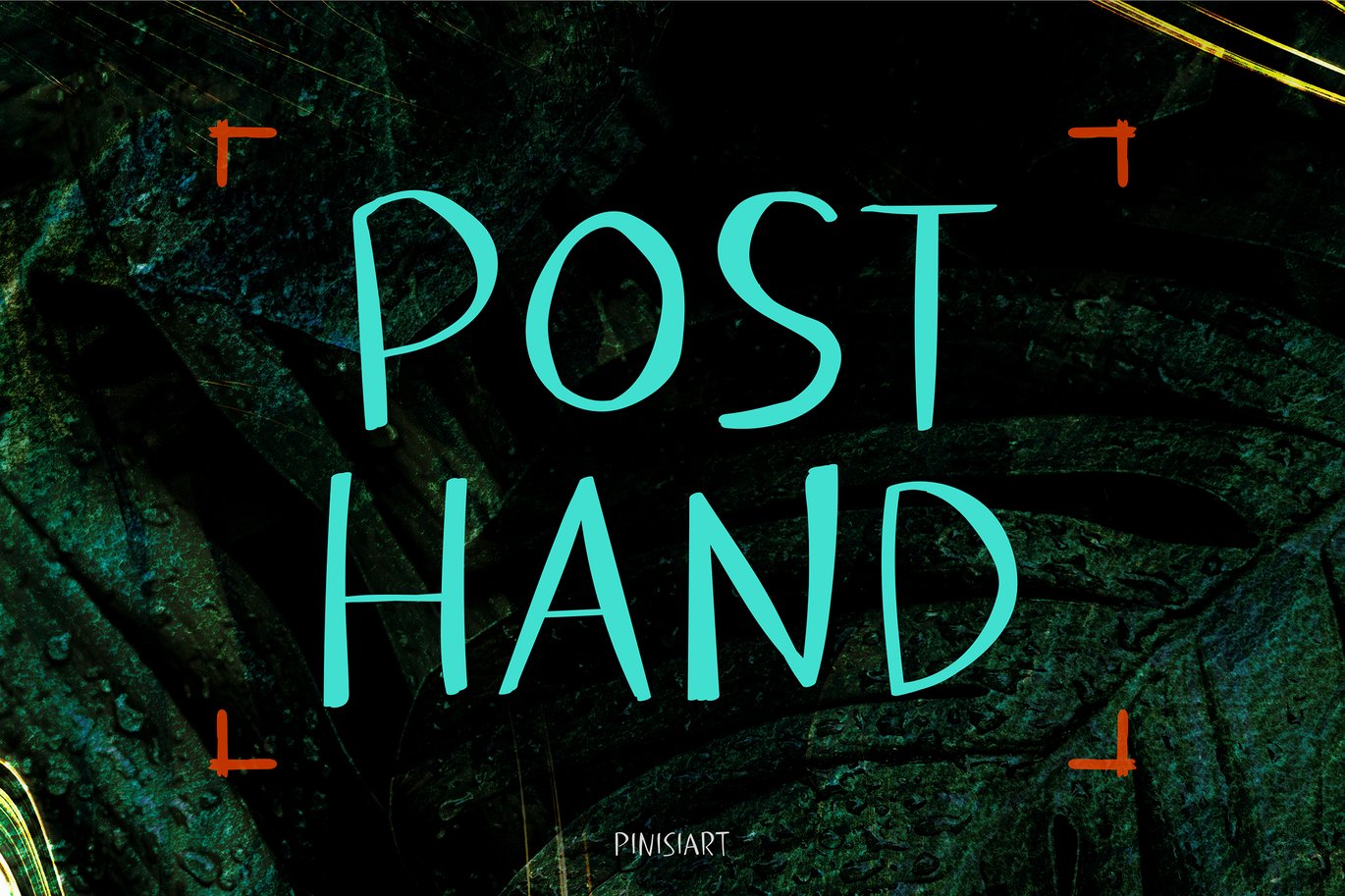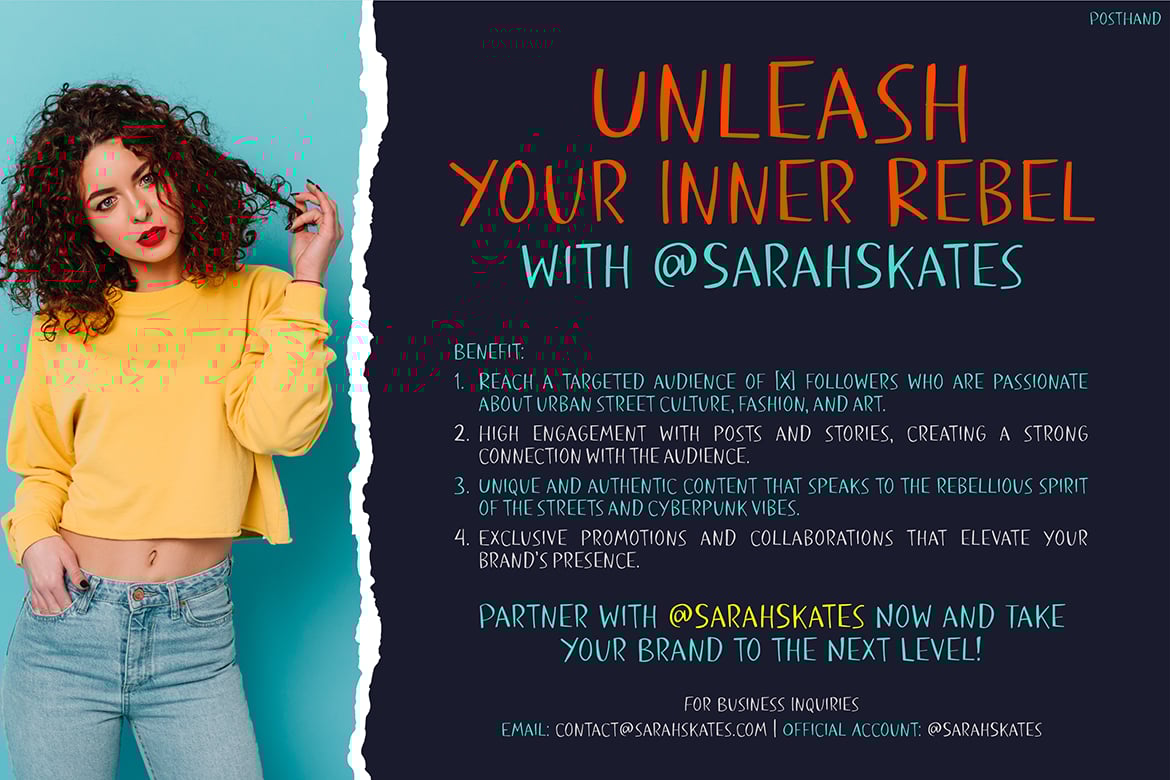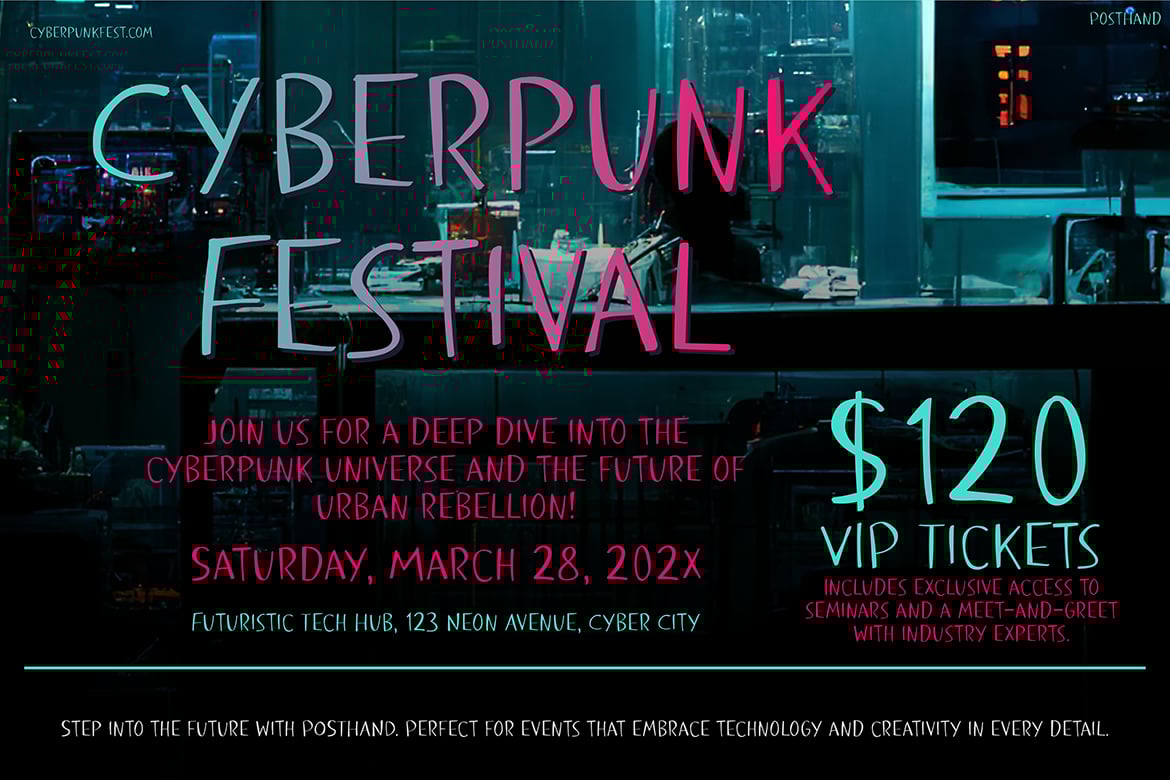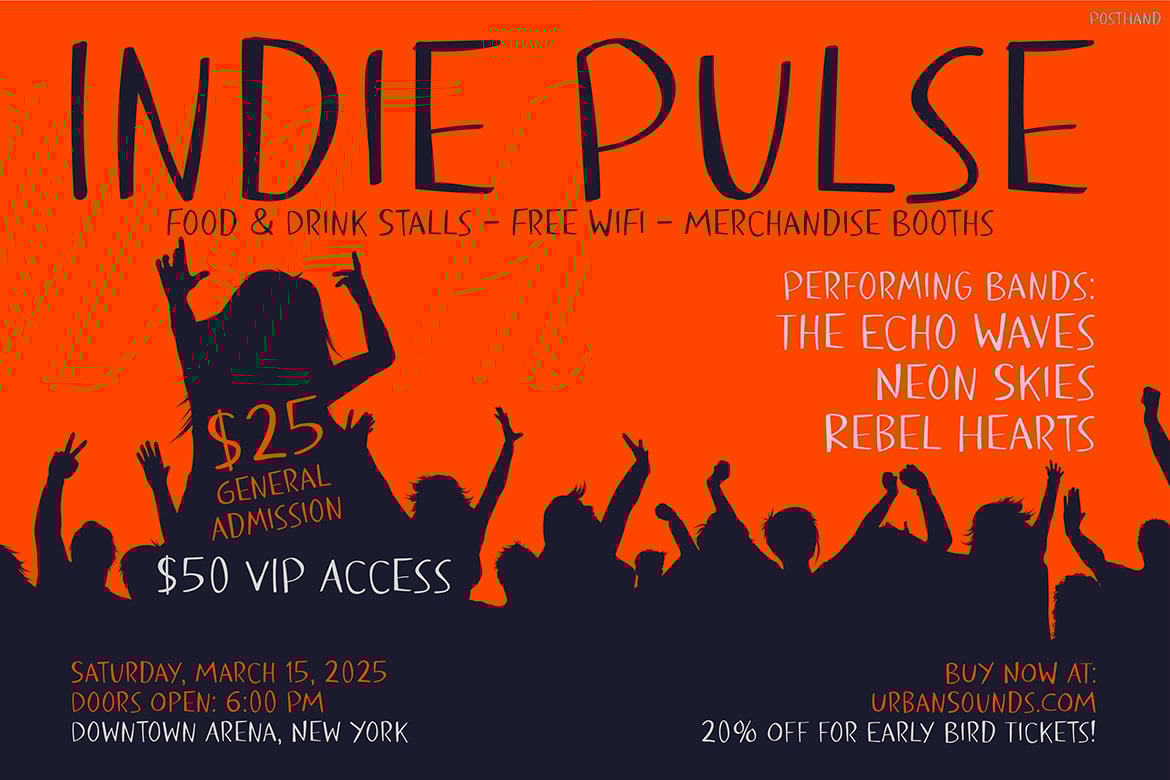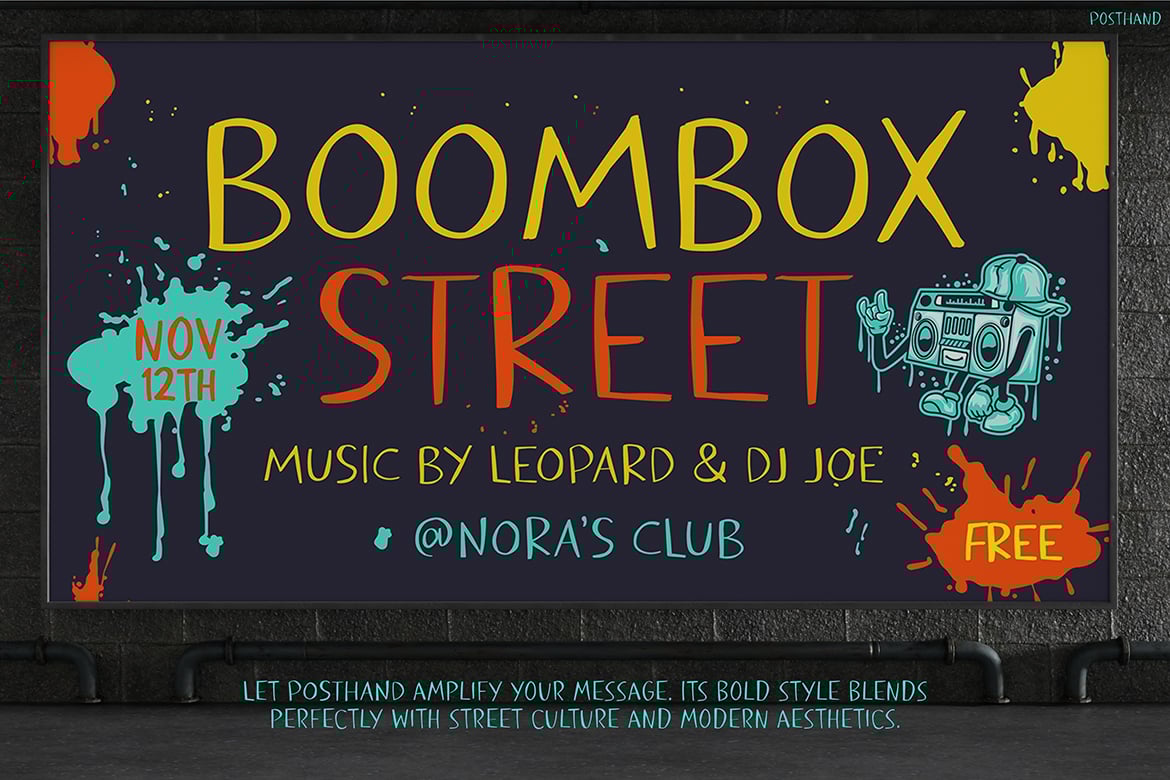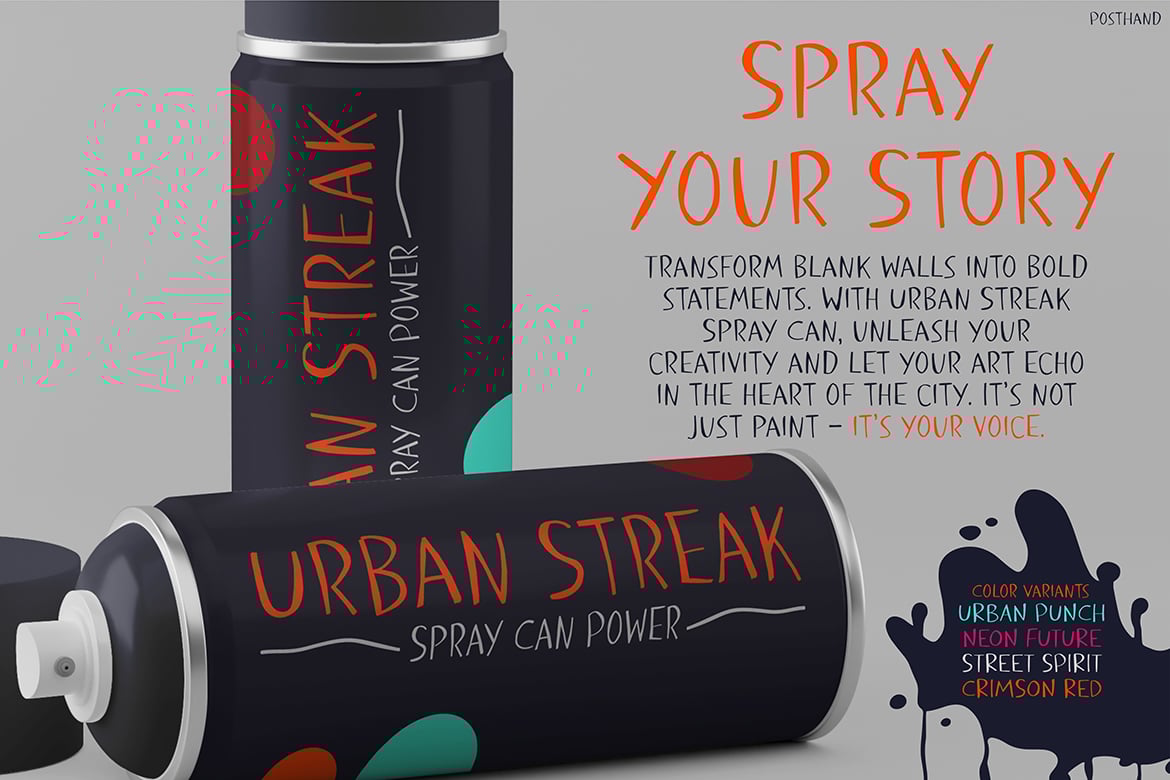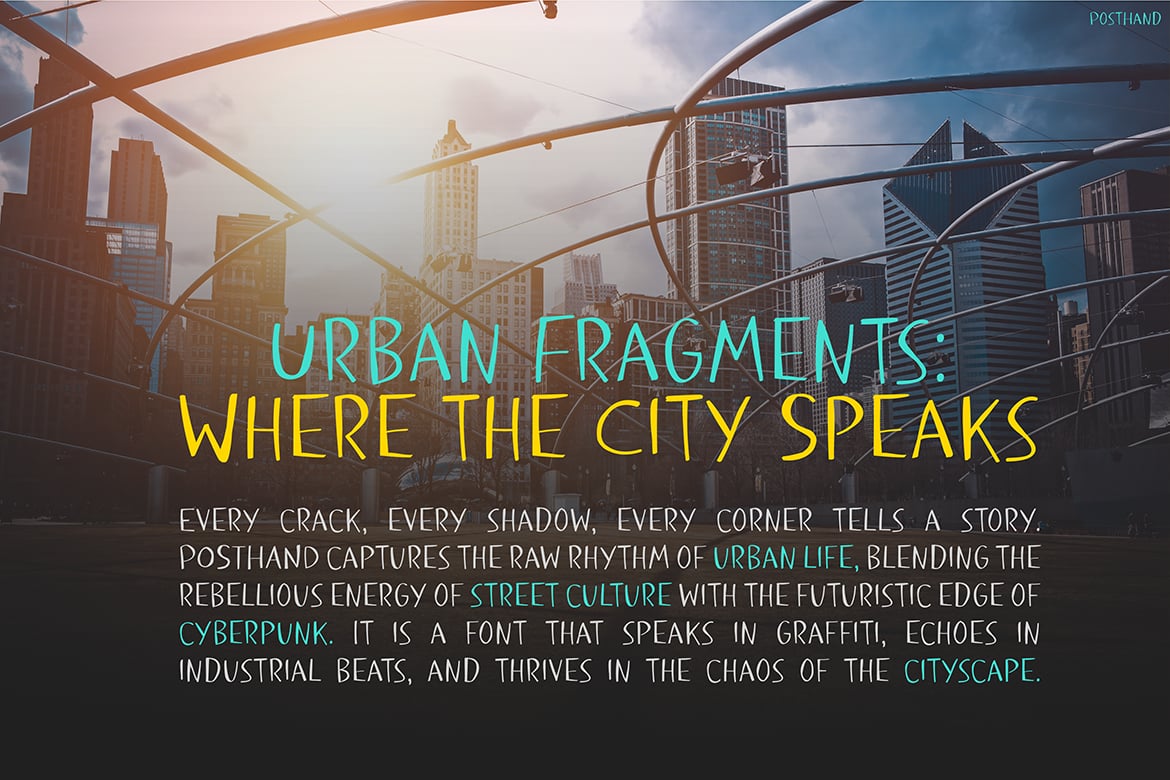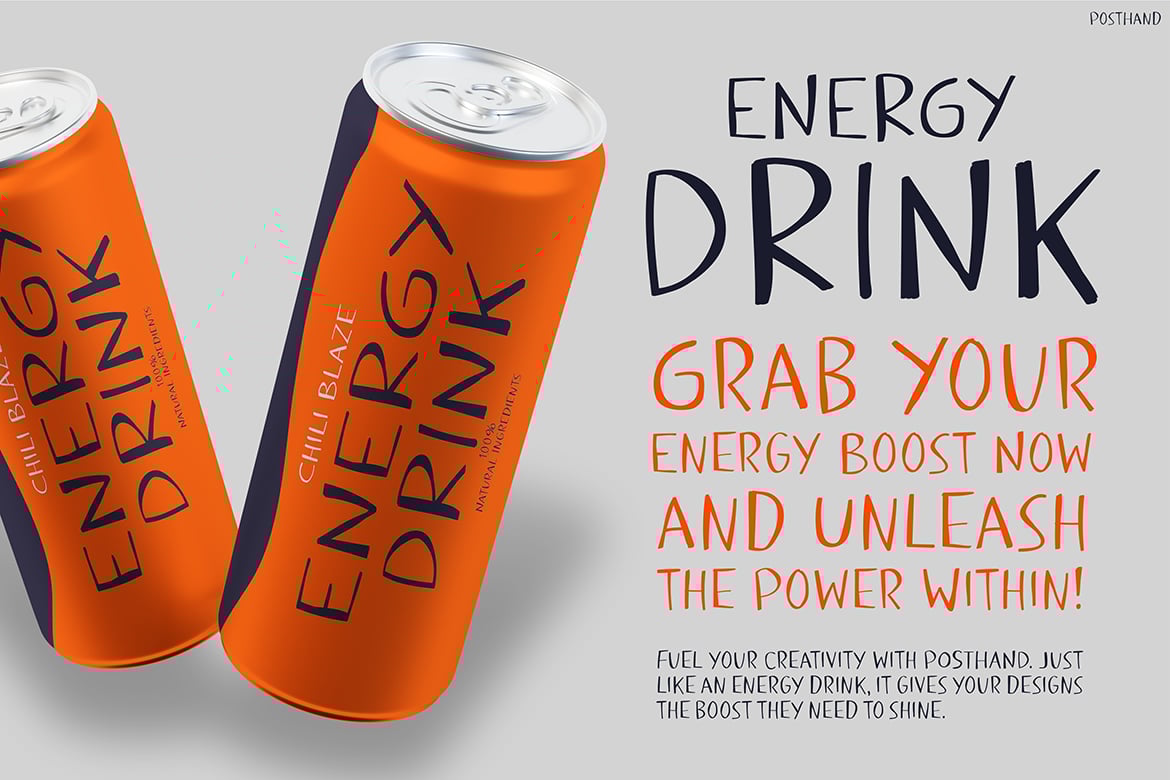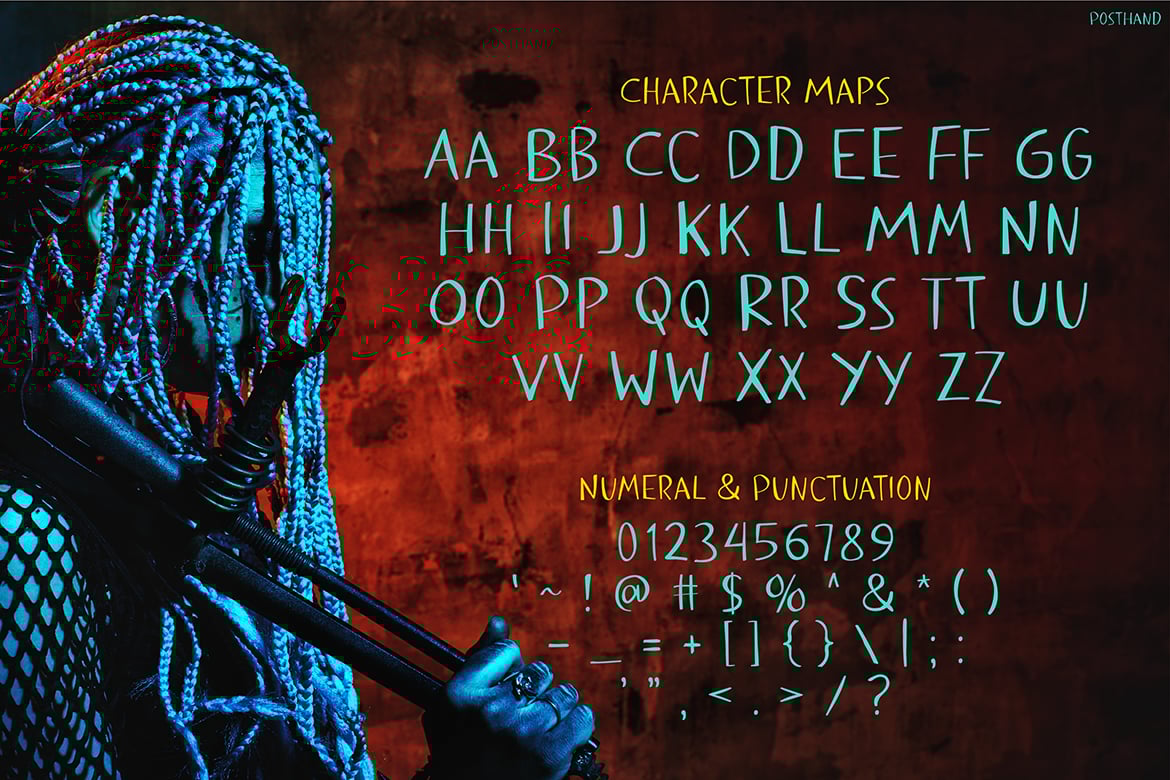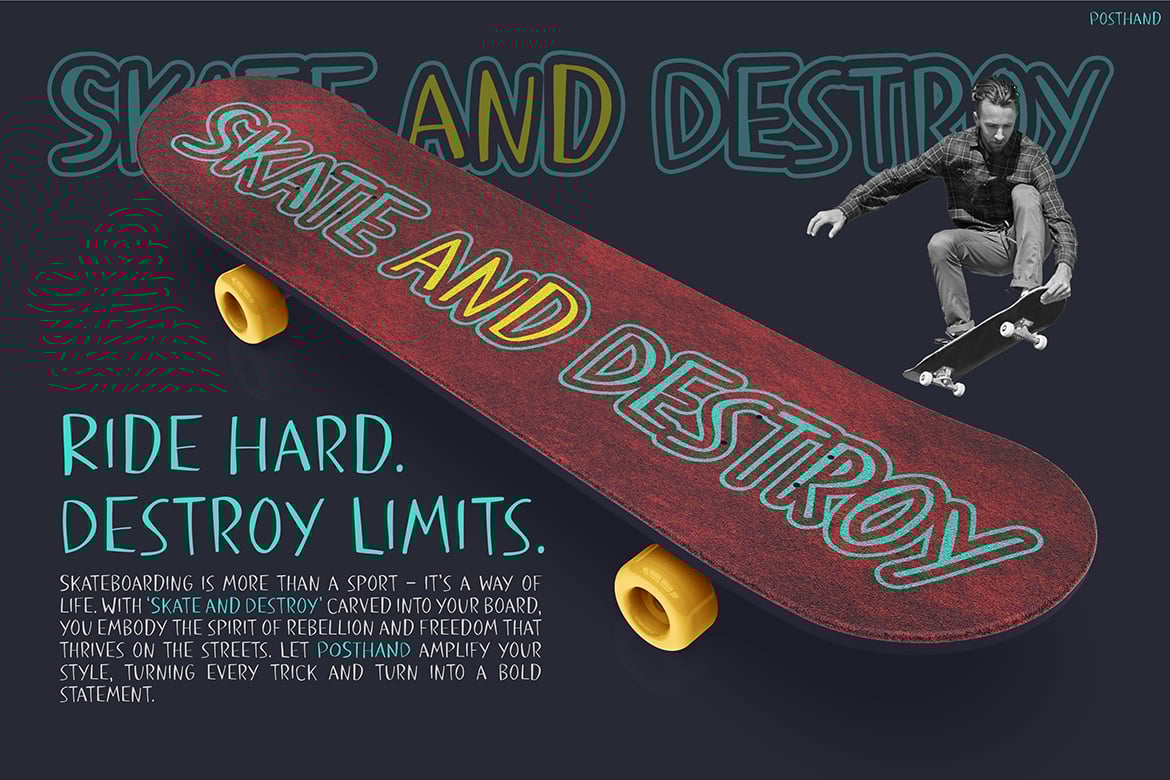
Cyberpunk Font – Posthand
Post Hand – A Rebellious Cyberpunk Display Font
Post Hand is a bold, unconventional display font with a raw, rebellious attitude. Inspired by cyberpunk aesthetics, dystopian sci-fi, and underground street culture, this font brings a futuristic yet anarchic edge to your designs. With jagged strokes, distorted letterforms, and glitch-inspired textures, Post Hand delivers gritty energy and futuristic chaos in every word.
Perfect for cyberpunk event posters, underground cyberpunk music branding, dystopian cyberpunk book covers, streetwear cyberpunk apparel, nightclub cyberpunk flyers, urban cyberpunk graffiti projects, sci-fi cyberpunk game titles, digital glitch effects, futuristic cyberpunk technology branding, rebellious cyberpunk slogan typography, alternative cyberpunk fashion lookbooks, cyber-themed movie titles, neon signage, cyberpunk gaming UI elements, and cyberpunk street art-inspired packaging.